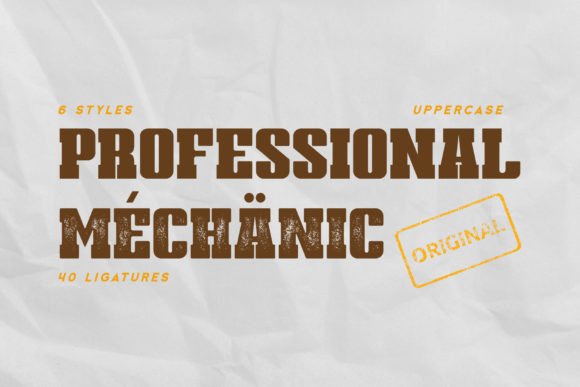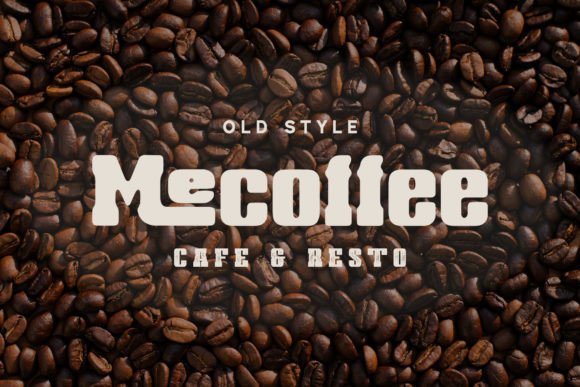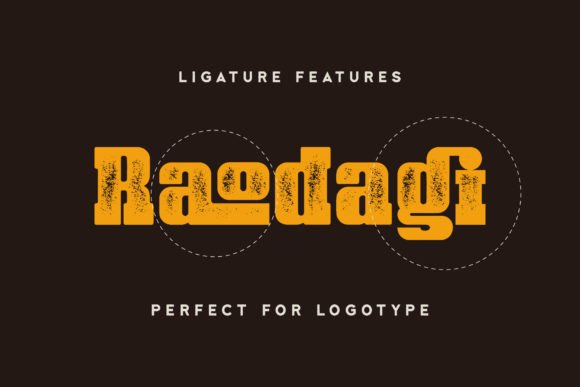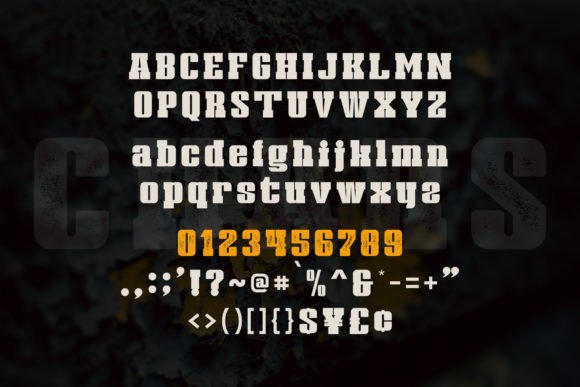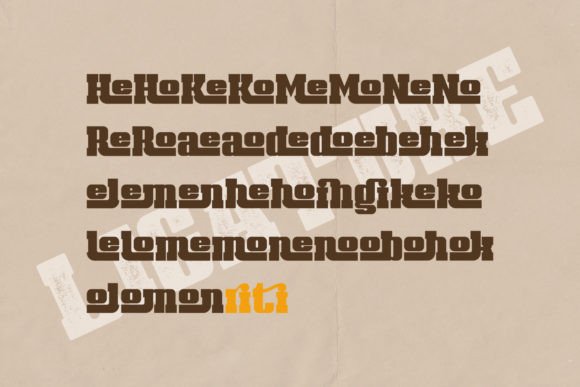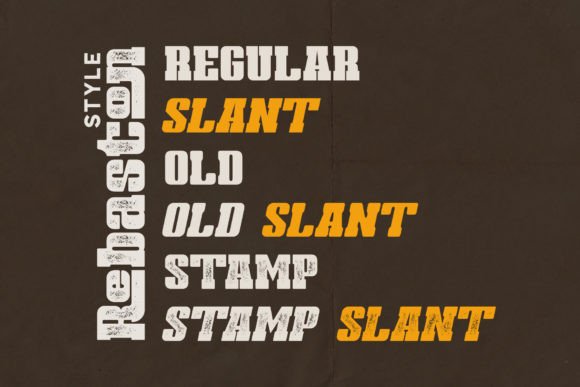
Introduction to Rebaston Font
Have you ever stared at a blank canvas, feeling the weight of a creative project’s expectations? It’s a moment we’ve all been in – the spark of inspiration eludes us, and our imagination stalls. But what if that spark could be reignited by a single font? Enter the Rebaston Font, a high-quality display serif typeface that’s about to revolutionize your design game.
With 40 ligatures and a unique stamp style, this font is the perfect design resource for any creative project. Whether you’re crafting a logo or branding a new business, the Rebaston Font offers a classic touch that’s simply unmatched. And the best part? It’s available for free download, making it an invaluable asset for designers of all levels.
Imagine unleashing your creativity with a font that’s as versatile as it is stylish – a font that lets your imagination shine through a transparent background, free from distractions. The Rebaston Font is that game-changer, and in this article, we’ll explore its many benefits and how it can elevate your designs to new heights.
Key Features of Rebaston Font
- High-quality design for creative projects, suitable for various design resources.
- Supports a wide range of languages, making it a versatile design resource.
- Features a unique, stylish design that sets it apart from other fonts.
Honest Review: Rebaston Font
I recently stumbled upon the Rebaston Font and I must say it’s a great addition to any designer’s toolkit. The high quality of this font is immediately noticeable, making it a perfect choice for any creative project.
- ✨ The font is highly customizable, allowing designers to adjust the size, color, and style to fit their needs.
- ⚠️ The font may not be as versatile as some other fonts, making it less suitable for certain design styles.
Overall, I’m impressed with the Rebaston Font. It’s a great design resource that can add a unique touch to any creative project. While it may have some limitations, the benefits far outweigh the drawbacks.
Tips for Getting the Most Out of Rebaston Font
To maximize the effectiveness of the Rebaston Font, use it in conjunction with other design elements that complement its high-quality design. Experiment with different font sizes, styles, and colors to create a unique and visually appealing design.
Common Use Cases for Rebaston Font
The Rebaston Font is suitable for a variety of creative projects, including branding materials, brochures, and website content. Its high-quality design and transparent background make it an ideal choice for designers looking to create visually appealing and professional-looking designs.